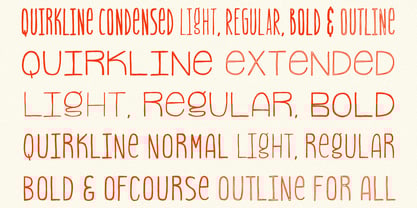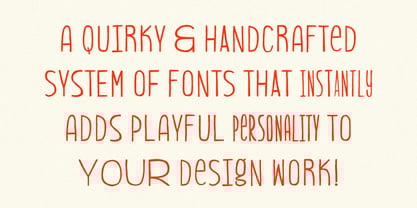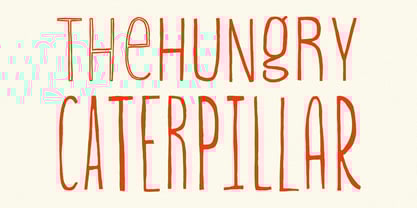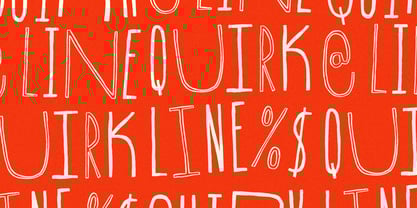
TC Quirkline
by Tom Chalky
The TC Quirkline Font Family was designed by Tom Chalky and published by Tom Chalky. TC Quirkline contains 18 styles and family package options. More about this family
Say hello to Quirkline - a playful, handcrafted font system with plenty of personality.
With 18 fonts to mix and match, Quirkline gives you all the flexibility you need to create bold, quirky, and eye-catching designs. Whether you're working on branding, packaging, posters, or anything in between, this collection has your back.
Here’s what’s inside:
✔ Three widths - Condensed, Regular, and Extended
✔ Three weights - Light, Regular, and Bold
✔ Outline versions for every style
Use them solo or stack them up for fun layered effects. Whatever you’re creating, Quirkline keeps things fresh, playful, and packed with character.
About Tom Chalky
Obsessed with handwritten, handpainted, and imperfect. Almost every design can benefit from a human’s touch or, at the very least, the appearance of one. It is relatable, tactile, and authentic. It stands out in our clean and crisp digital world, and it is this charismatic and expressionate style of design that I strive for in each and every one of my fonts.